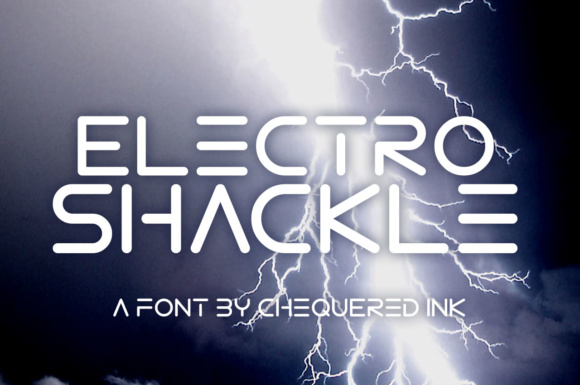
Embrace the future of typography with Electro Shackle Font, a display font family that oozes bold geometric aesthetics. Crafted by the visionary Chequered Ink, this font is not just a collection of letters; it's an invitation to unlock a world of creativity and self-expression.
With Electro Shackle Font, your designs will transcend the ordinary and become captivating masterpieces. Its sharp angles and clean lines exude a sense of modernity, while its sturdy structure ensures readability even at small sizes. Whether you're creating logos that demand attention or posters that scream individuality, Electro Shackle Font is your ultimate weapon.
Step into the digital realm and let Electro Shackle Font elevate your projects to new heights. Its techno-inspired design is perfect for capturing the essence of innovation and progress. Unleash your imagination and let this font carry your message with power and precision.
But Electro Shackle Font is not just about aesthetics; it's also highly versatile. Whether you're working on branding, web design, or social media graphics, this font seamlessly adapts to your vision. Its distinct character adds a touch of intrigue to any project, making it the perfect choice for those who want to stand out from the crowd.
Join the creative revolution and let Electro Shackle Font ignite your designs. With its captivating style and endless possibilities, this font is the key to unlocking your full creative potential. Dare to be different, embrace the future, and let Electro Shackle Font be your guide.